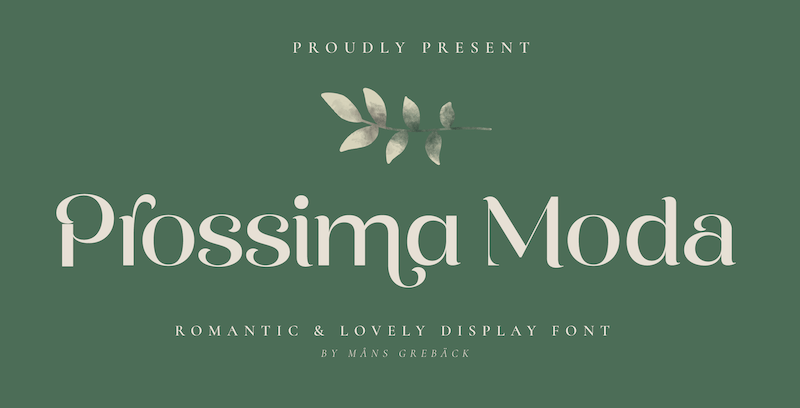
Preview and download Prossima Moda Font. Created by Måns Grebäck in Basic Serif styles with Free for personal use license.
NOTE: This font is for PERSONAL USE ONLY! To purchase a commercial license, visit: http://mn.sg/prossima-moda Prossima Moda is a font that radiates modernity and fashion-forward style. Its sleek and contemporary design evokes a sense of sophistication and elegance, while its contrasting lines add a touch of visual interest and intrigue. For questions, please visit www.mansgreback.com/faq |